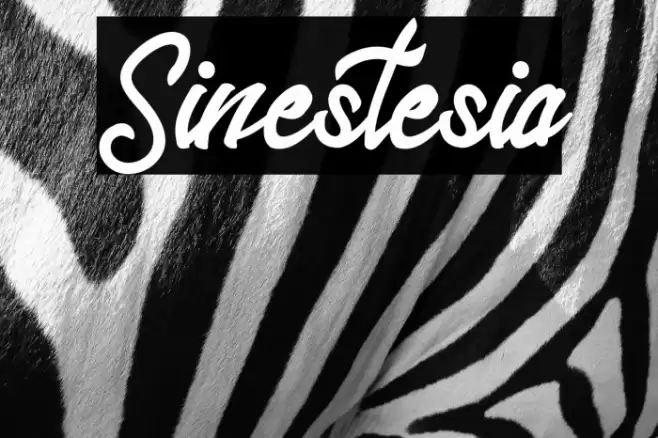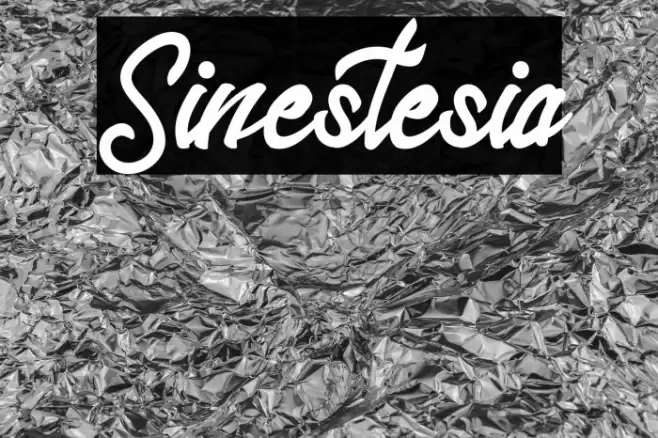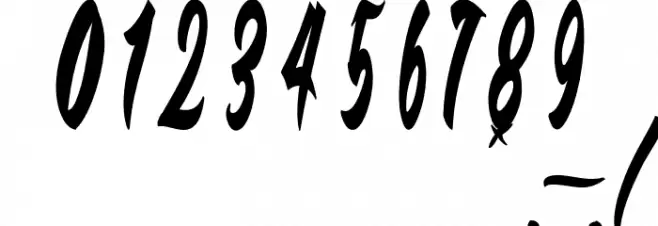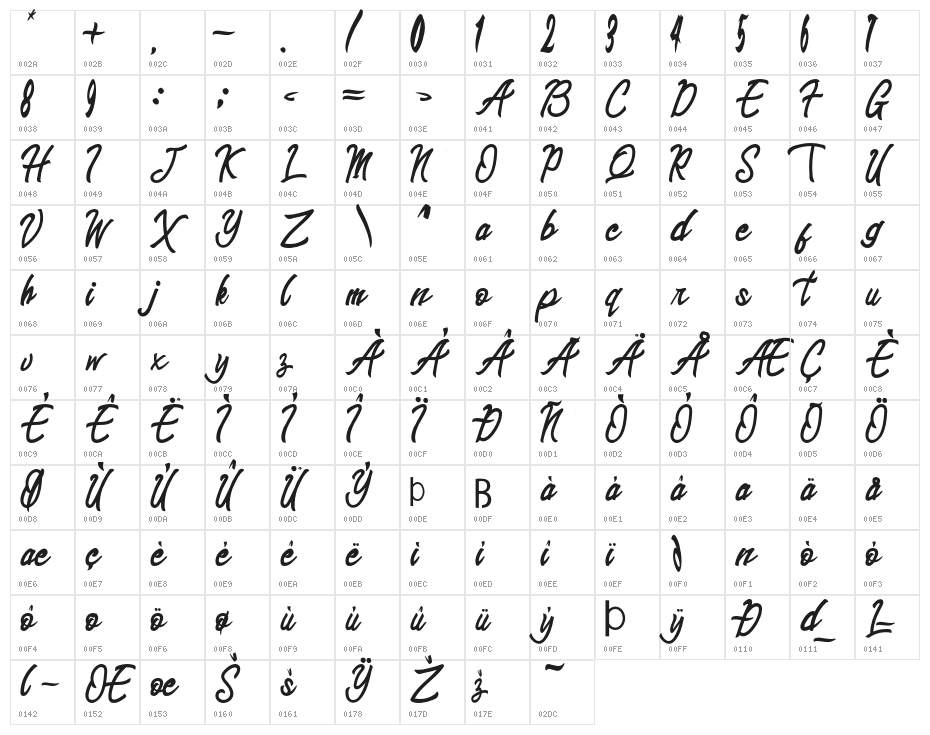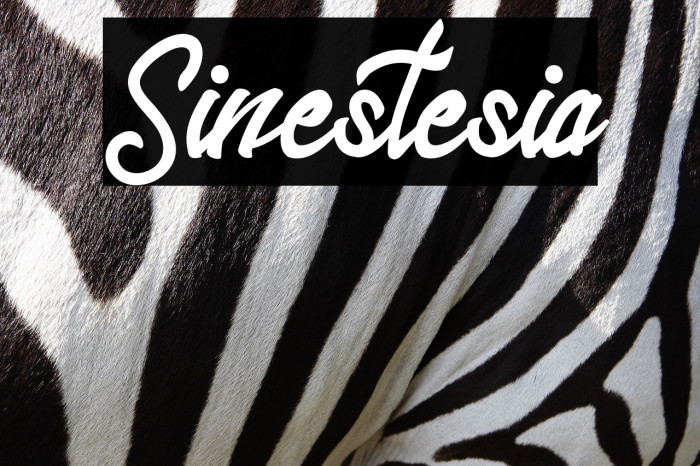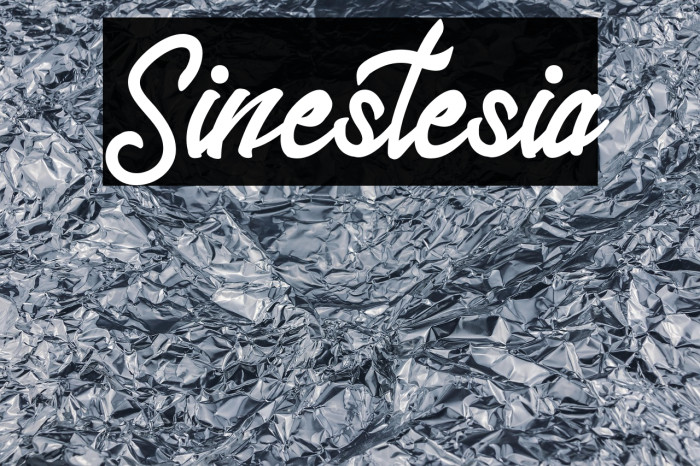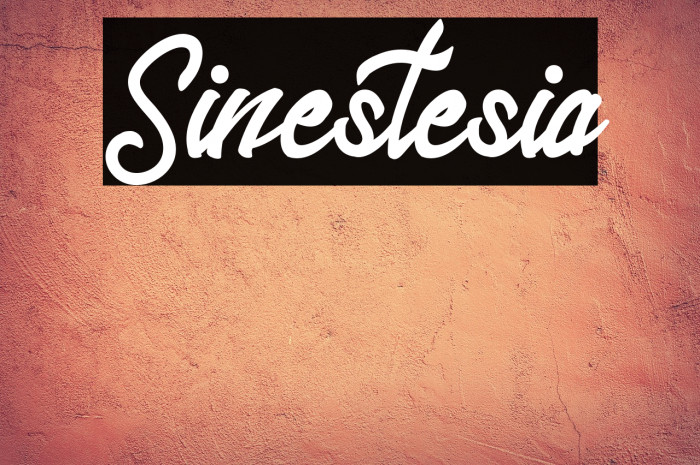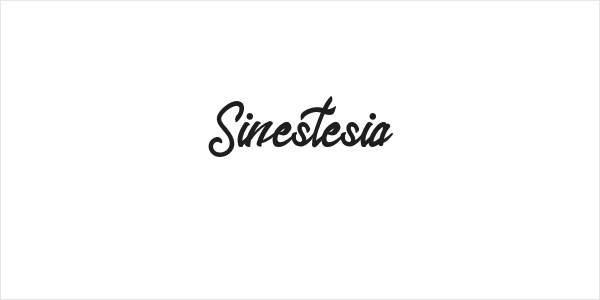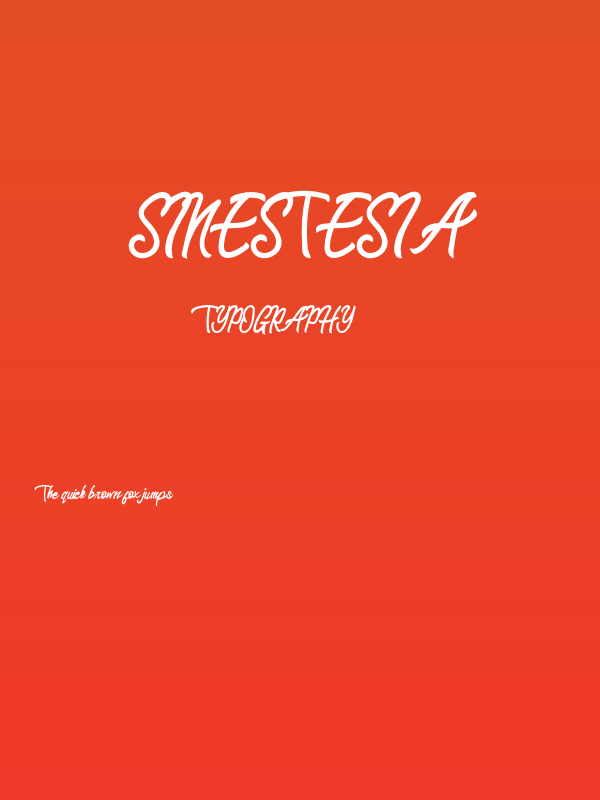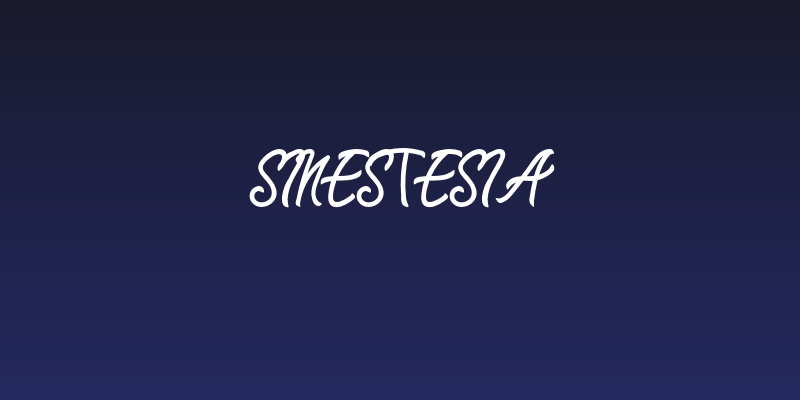
Sinestesia Font
Sinestesia Description
This font features a dynamic and expressive script style, characterized by fluid, interconnected strokes that convey a sense of movement and elegance. The uppercase letters are bold and sweeping, with a distinct flair that adds a touch of sophistication. The lowercase letters maintain a consistent flow, enhancing readability while retaining an artistic quality. Numbers are styled with a similar flourish, ensuring they blend seamlessly with the alphabet. The special characters are thoughtfully designed, complementing the overall aesthetic. This font is ideal for projects that require a personal, handwritten touch.
A dynamic and expressive script font with fluid, interconnected strokes from Regular fonts.